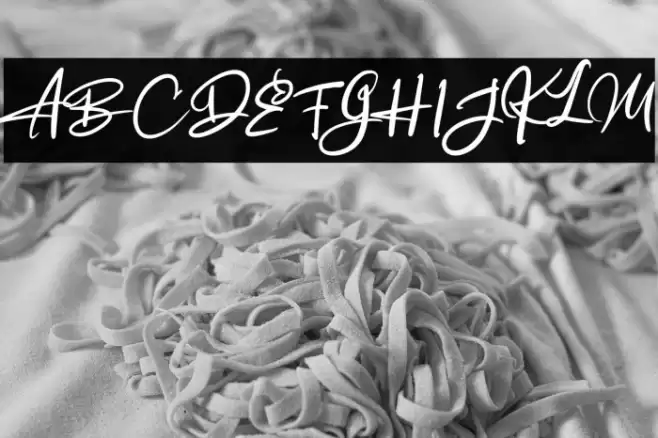
AlgortyFREE Font
AlgortyFREE Description
This font exudes a lively and dynamic character with its flowing script style. The letters are interconnected, creating a sense of continuity and movement. The uppercase letters are bold and expressive, with elegant loops and curves that add a touch of sophistication. The lowercase letters maintain a consistent flow, complementing the uppercase with their graceful and fluid strokes. The numbers and special characters are designed to match the overall aesthetic, ensuring a cohesive look across all text. This font is perfect for projects that require a personal and artistic touch, such as invitations, branding, and creative designs.
A lively and dynamic script font with elegant loops and fluid strokes from Uncategorized fonts.